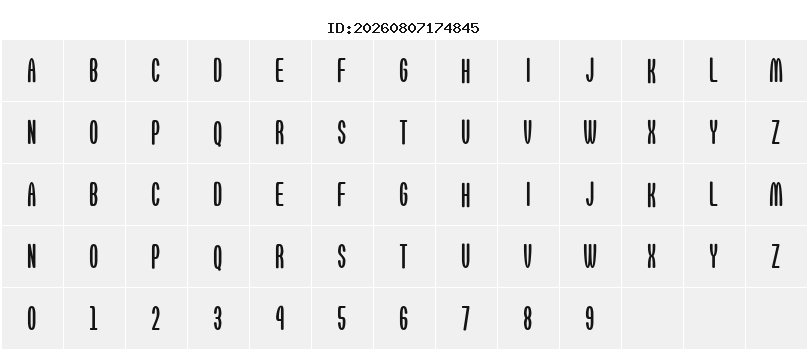
OMOTENASHI__G Preview
About OMOTENASHI__G.ttf
OMOTENASHI__G.ttf is a modern, elegant sans-serif font designed for ultimate readability and visual harmony. Perfect for branding, headlines, web design, and print materials.